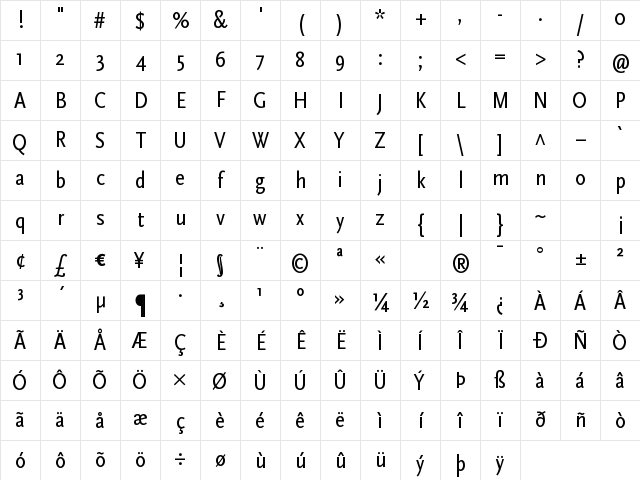
Complete ScalaSans Cond Regular glyph index. Displaying only characters natively supported by ScalaSans Cond Regular font.
ScalaSans Cond is a composed and adaptable typeface that performs quietly and consistently across a wide range of design contexts. Its narrow stance lets it pack a punch even in space-constrained designs.